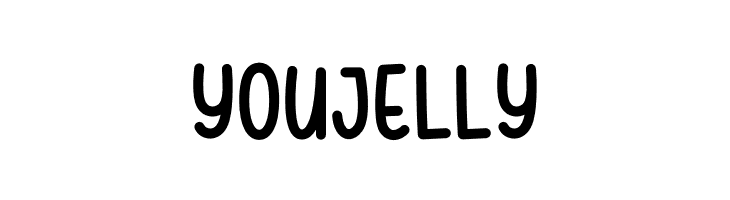
A playful, bold, and rounded handwritten font with a casual style.
A bold, angular font with a strong, industrial aesthetic.
A bold, cursive script font with elegant, flowing lines and a strong presence.
A playful, handwritten font with elongated characters and a casual style.
A dynamic, cursive font with a handcrafted, italic style.
A bold, playful, hand-drawn font with a whimsical and artistic feel.
A bold, dripping effect font with a playful and creative style.
A bold, angular font with a geometric and modern-vintage style.
A playful, rounded handwritten font with a casual and friendly vibe.
A lively script font with fluid, connected strokes and a handwritten feel.